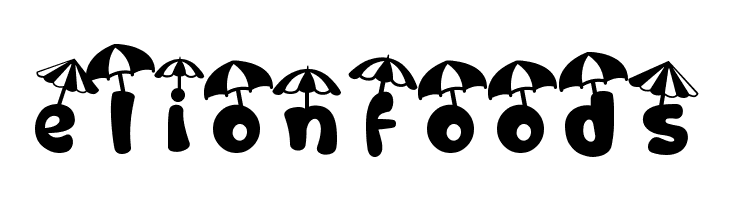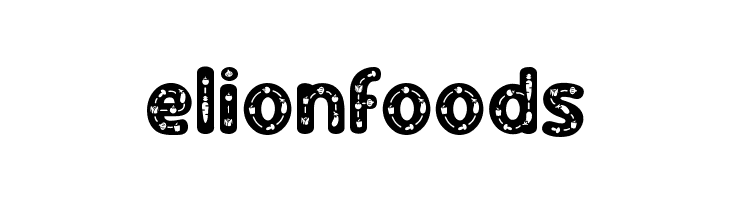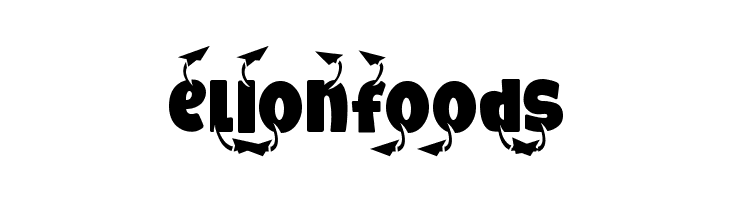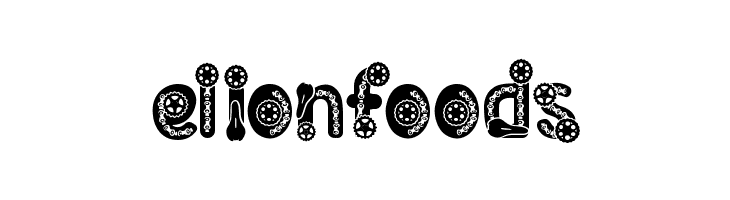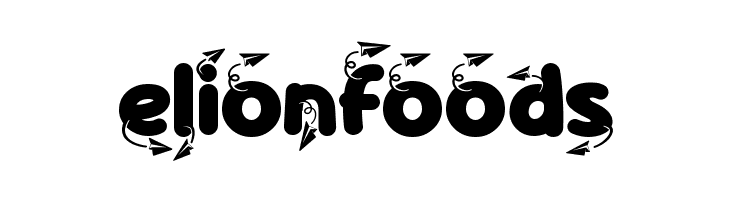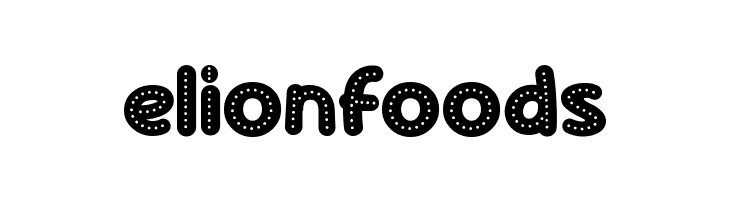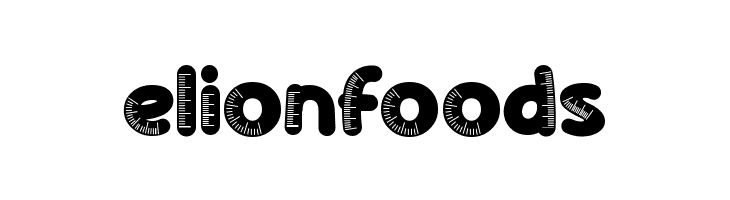
A playful, umbrella-themed decorative font with bold, rounded characters.
A bold, decorative font with leaf-patterned characters.
A bold, decorative font with leaf motifs integrated into each character.
A bold, playful font with integrated paper plane motifs, perfect for creative projects.
A bold, decorative font with intricate gear motifs and mechanical themes.
A bold, playful font with paper plane decorations, perfect for creative projects.
A bold, rounded font with a playful dotted pattern, perfect for creative projects.
A bold, playful font with book-themed characters, perfect for educational and children's projects.
A playful, ruler-themed font with bold, rounded letters and medium contrast.
A whimsical font with tail-like flourishes on each character, adding a playful and magical touch.